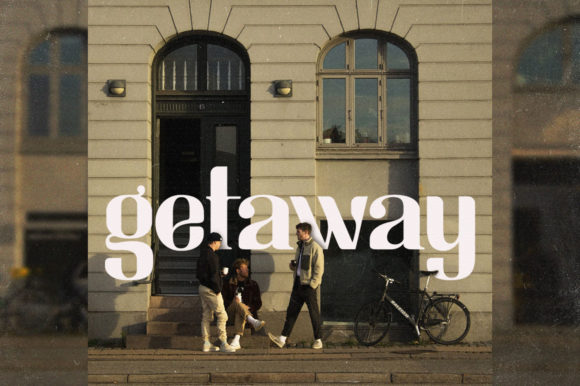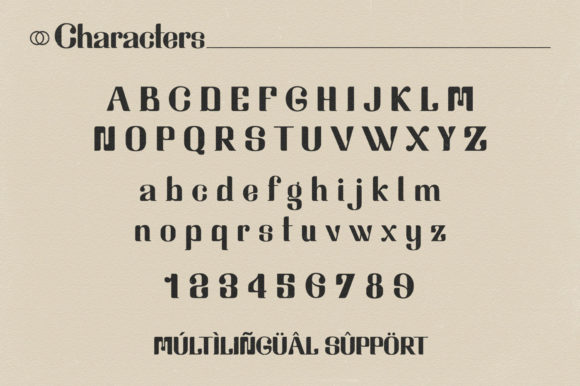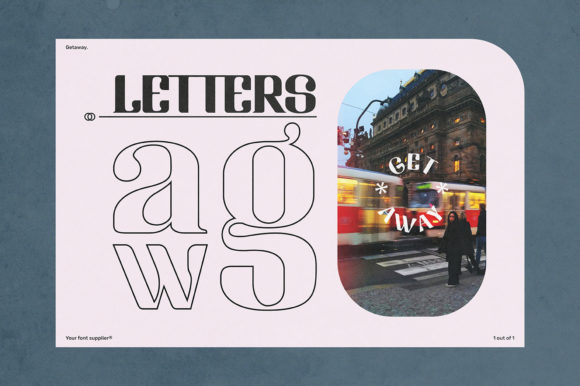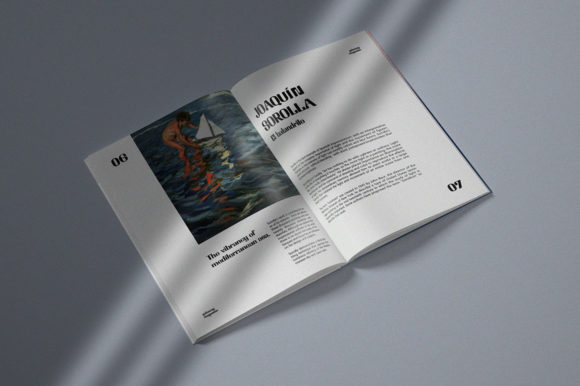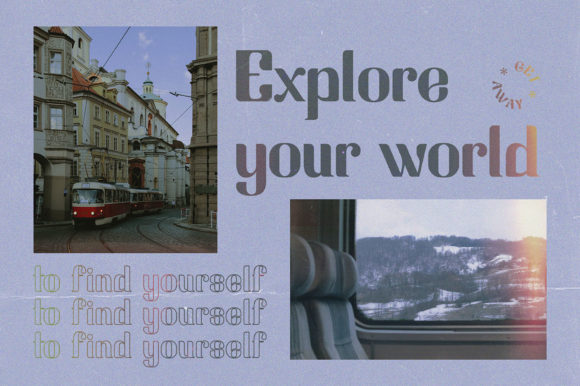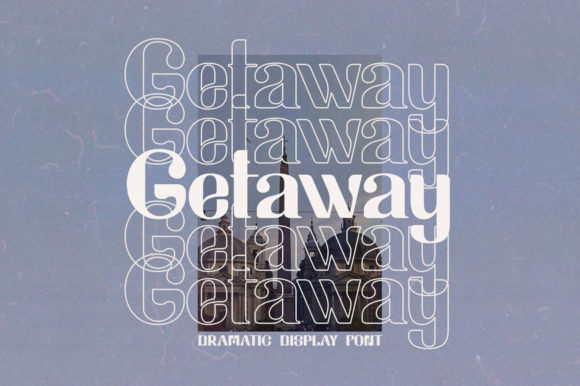
Introducing Getaway Font: Elevate Your Designs with a Modern Twist on Vintage Typography
In the world of typography, fonts play a crucial role in conveying the tone and personality of a brand or design. For designers and crafters, finding the perfect font can be a daunting task. However, if you’re looking for a bold and eye-catching font that combines modern style with vintage charm, look no further than Getaway Font.
What is Getaway Font?
Getaway is a bold display font that boasts a harmonious balance between straight and curved shapes. This unique blend of geometric and organic elements makes it a modern interpretation of vintage typographic styles. With its sleek lines and smooth curves, Getaway Font is perfect for designers who want to add a touch of sophistication and elegance to their creations.
Key Features of Getaway Font
- Bold and Eye-Catching: Getaway Font is designed to make a statement. Its bold and confident appearance makes it perfect for headlines, titles, and other display text.
- Modern Interpretation of Vintage Style: Getaway Font takes inspiration from classic typographic styles and gives them a modern twist. The result is a font that feels both nostalgic and fresh.
- Versatile: Whether you’re designing a logo, brochure, or website, Getaway Font is versatile enough to adapt to any topic or theme.
- Easy to Read: Despite its bold appearance, Getaway Font is easy to read, making it perfect for use in a variety of applications, from body text to captions.
Why Choose Getaway Font?
Getaway Font is an incredible asset to any font library, and here’s why:
- Elevate Your Designs: With Getaway Font, you can instantly elevate your designs and give them a professional touch.
- Stand Out from the Crowd: Getaway Font’s unique style ensures that your designs will stand out from the crowd and grab attention.
- Save Time: With Getaway Font, you can save time searching for the perfect font. Its versatility and ease of use make it a go-to choice for any design project.
How to Use Getaway Font
Getaway Font is perfect for a variety of design applications, including:
- Logos and Branding: Use Getaway Font to create a bold and memorable logo that reflects your brand’s personality.
- Headlines and Titles: Getaway Font is perfect for headlines and titles, adding a touch of sophistication and elegance to any design.
- Posters and Flyers: Use Getaway Font to create eye-catching posters and flyers that grab attention.
- Web Design: Getaway Font is also suitable for web design, adding a touch of style and sophistication to your website.